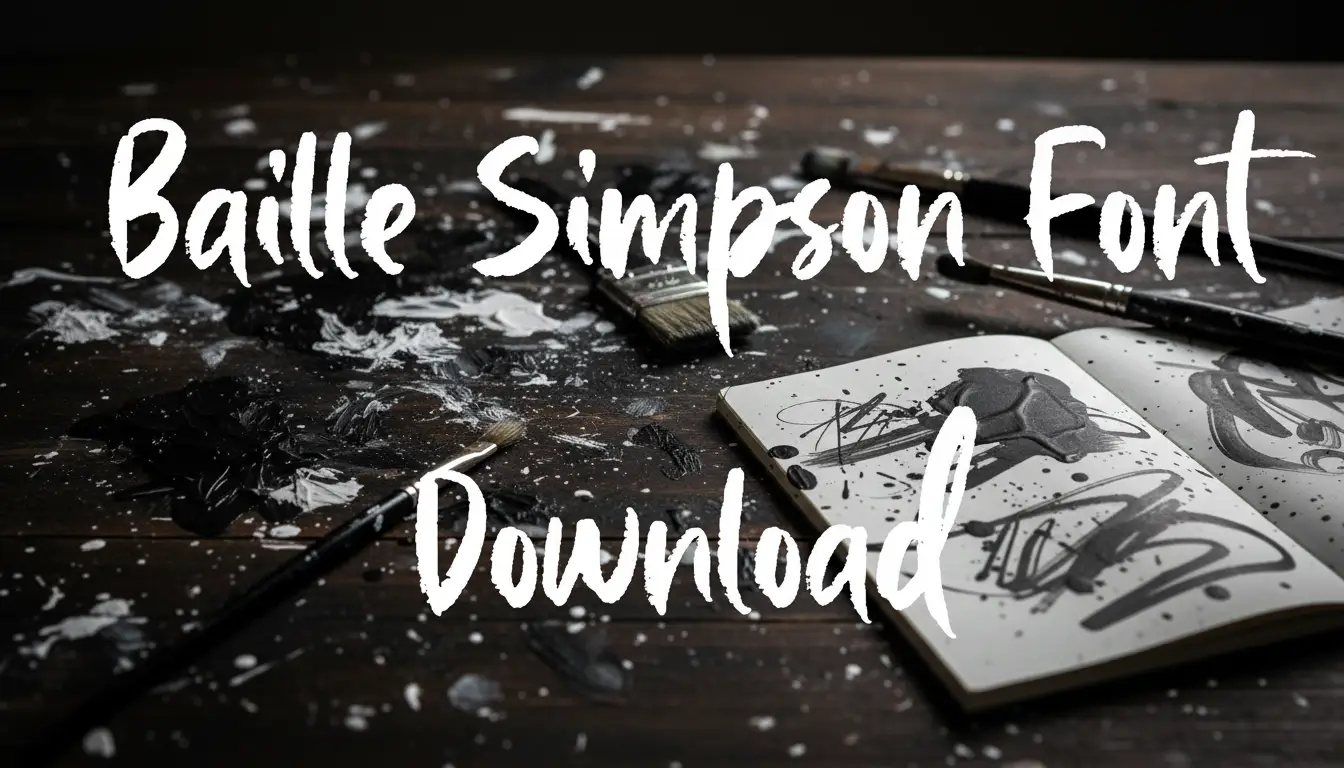
Baille Simpson Font
Baille Simpson
Baille Simpson is a script font designed by Sarid Ezra and published by Letterhend Studio. It has that hand-lettered, flowing feel people look for when regular type seems too stiff. You can download it for free and test it with your own words in the preview above.
What You Can Type With Baille Simpson
Baille Simpson covers the full alphabet in upper and lowercase, plus all ten numbers, so you can set names, dates and prices without switching fonts. Everyday marks like &, !, ? and @ are there too. There are no accented letters like é or ñ, so it's best kept to English text.
Where Baille Simpson Works Best
Designers usually reach for fonts like Baille Simpson when they're making wedding invitations, logos and signature-style headings. Script fonts read best in short bursts, so keep it to names, titles and one-line quotes. Skip all caps: script capitals are drawn to start a word, not to fill one.
Does Baille Simpson support accented letters?
No. Baille Simpson has no accented letters such as é, ñ or ü, so it's best for English text.